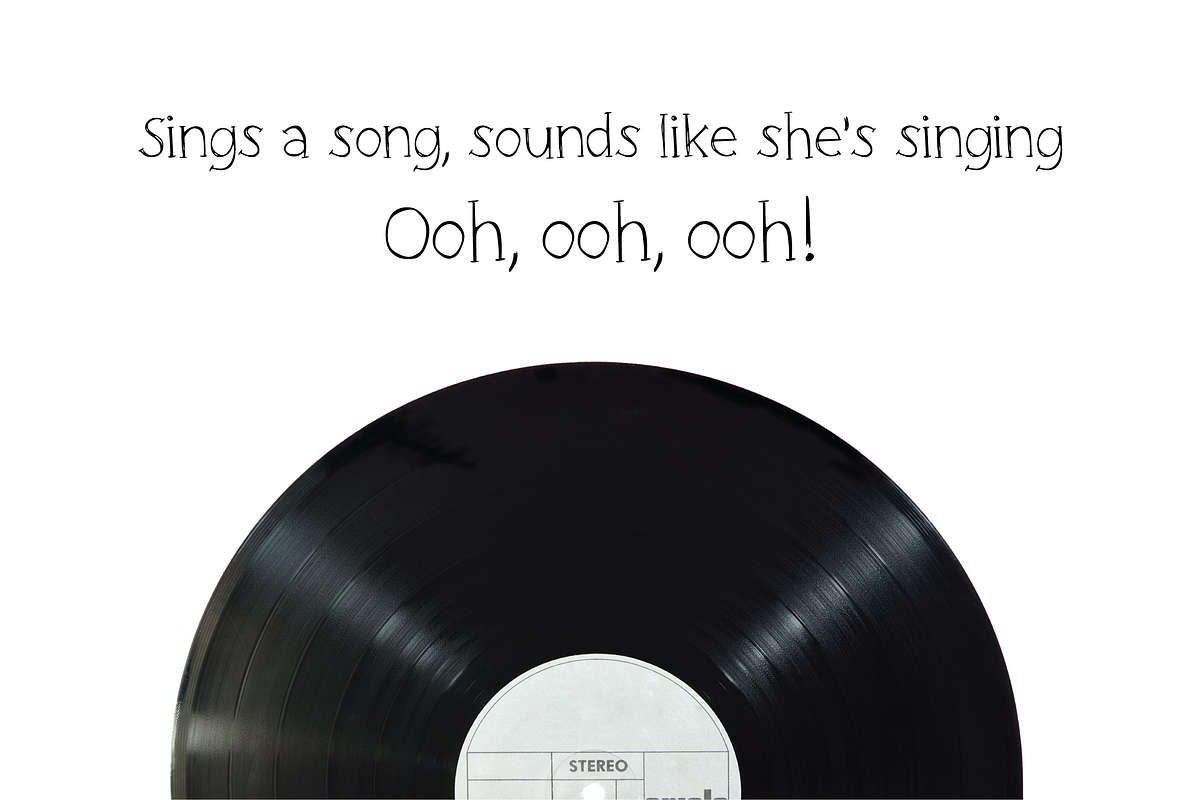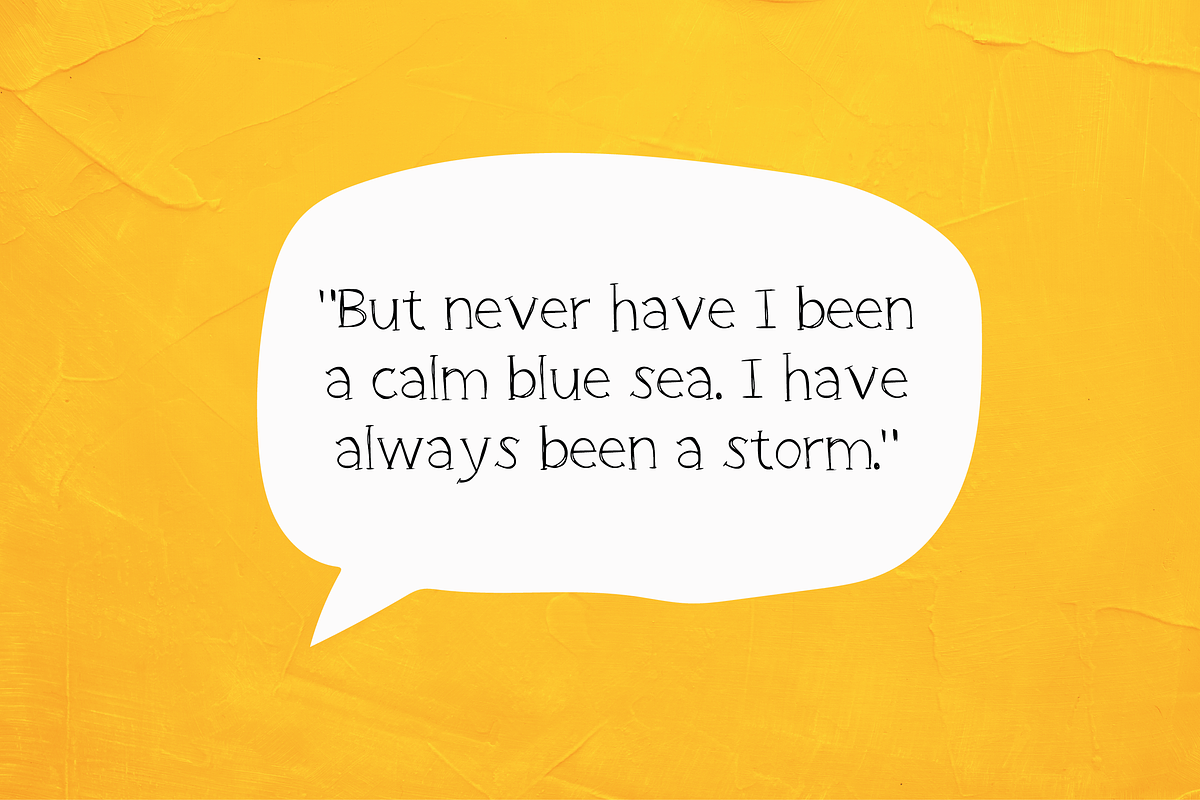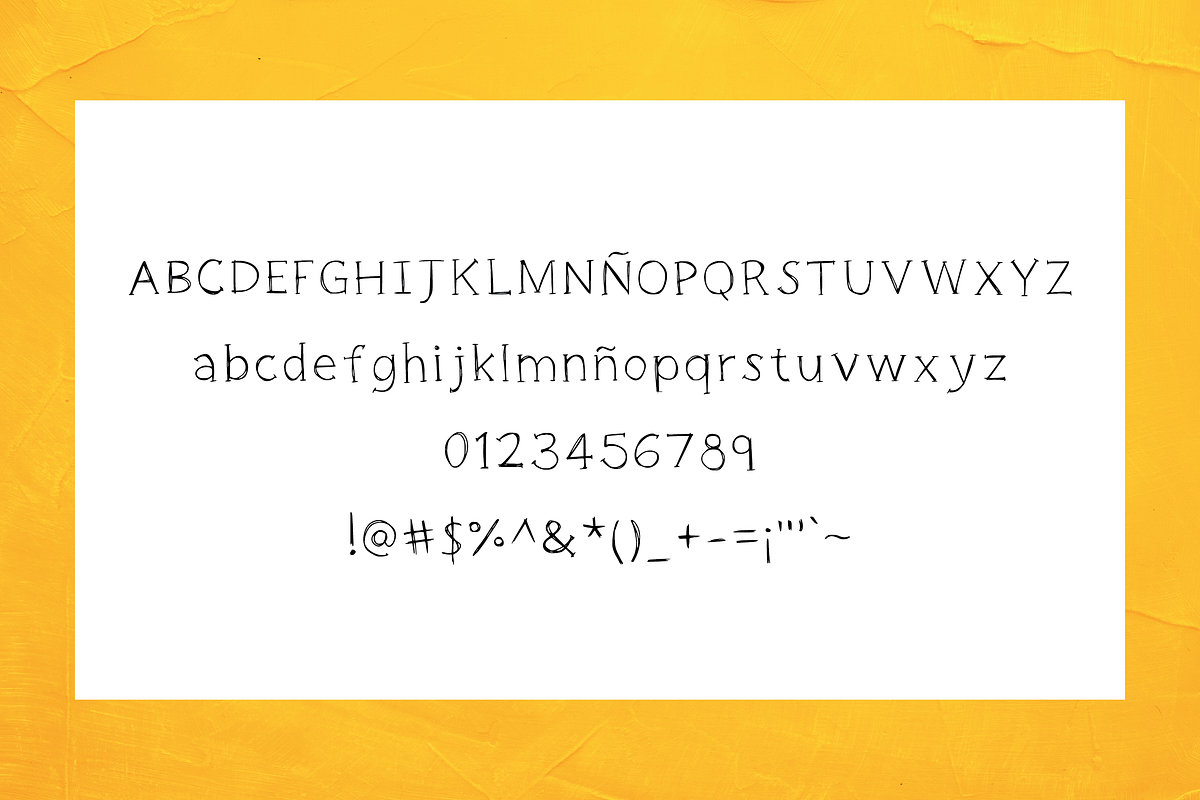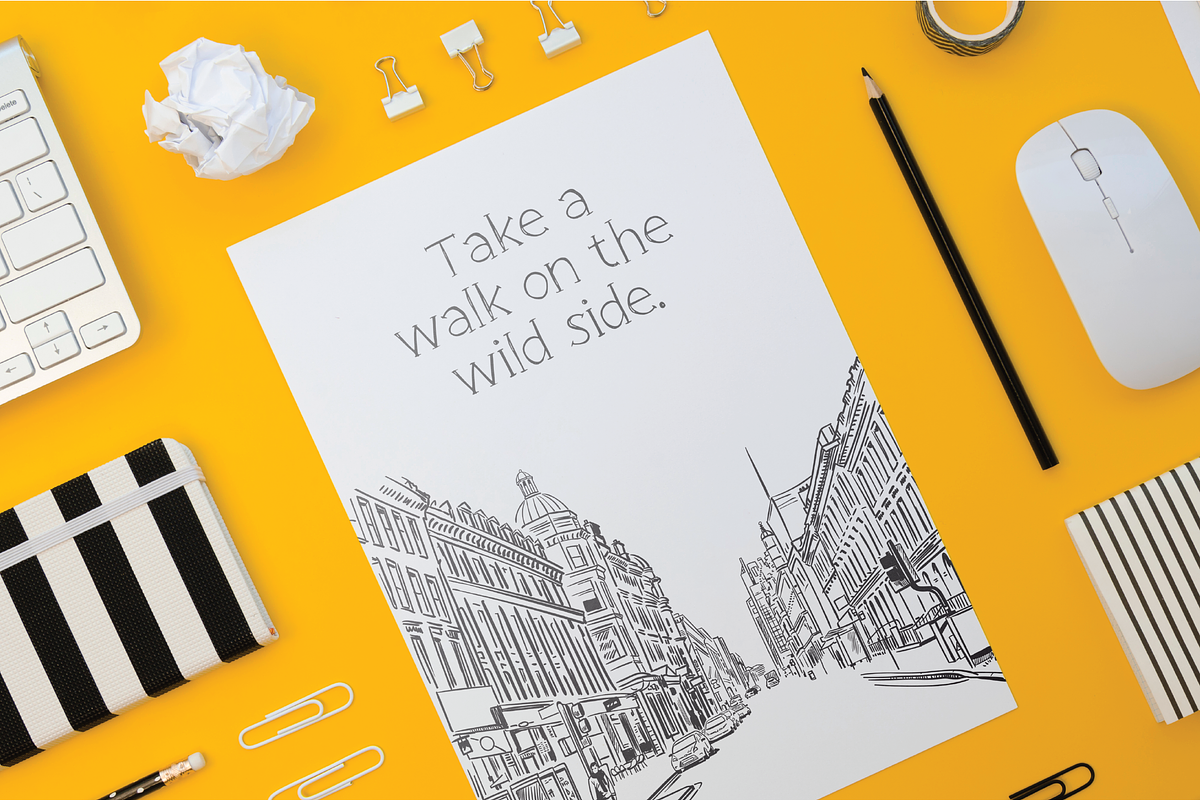
Sound Waves Sketch Font
SOUND WAVES (Sketch font) - A hand crafted Serif font perfect for any design, posters, big titles, instagram posts, etc.
- Numbers and Punctuation
- Supports English and Spanish characters.